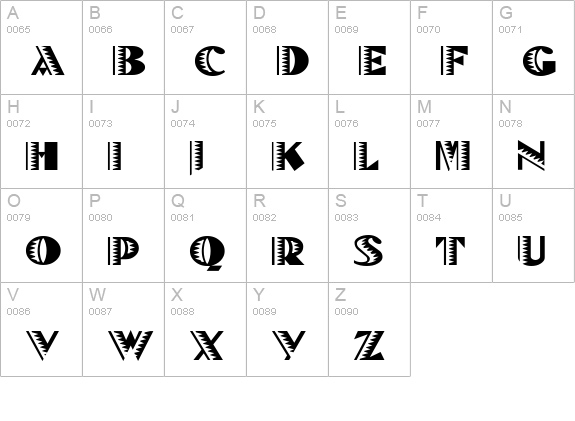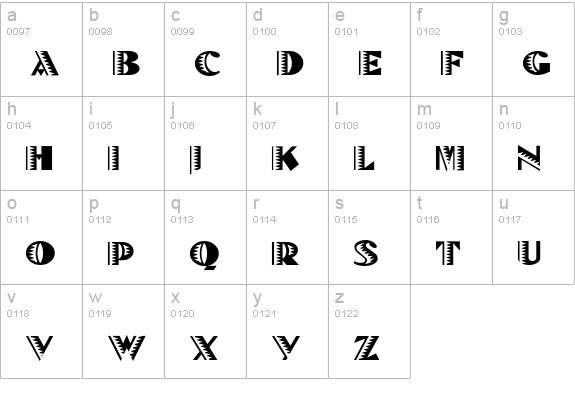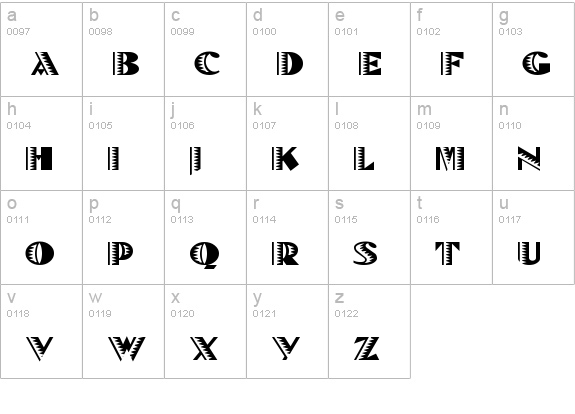
Bete Noir NF Font Details
Bete Noir NF font exudes a sense of mystery and sophistication with its elegant and intricate design. This striking font features sharp serifs and bold strokes, making it perfect for adding a touch of drama to your projects. Its unique character and timeless appeal make it a standout choice for headlines, logos, and branding. The best part? Bete Noir NF font is available for free download at FontsMarket.com. So go ahead and elevate your designs with this captivating typeface that is sure to make a lasting impression.